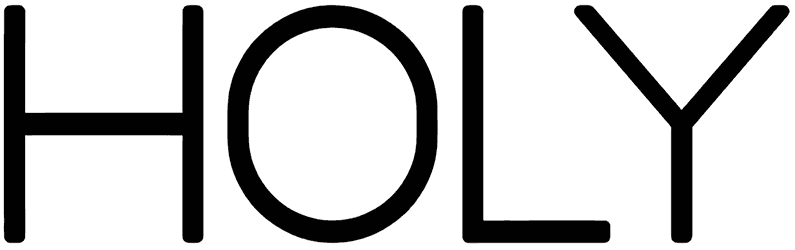
Holy Font
Minimal styles are catchy and at the same time matchable with any theme and project. As a sans serif font, Holy has humble lettering in three variants, two weights, and an outline style. With full characters, this modern font serves as a striking illustration for formal or informal designs from business presentations to artistic apparel.